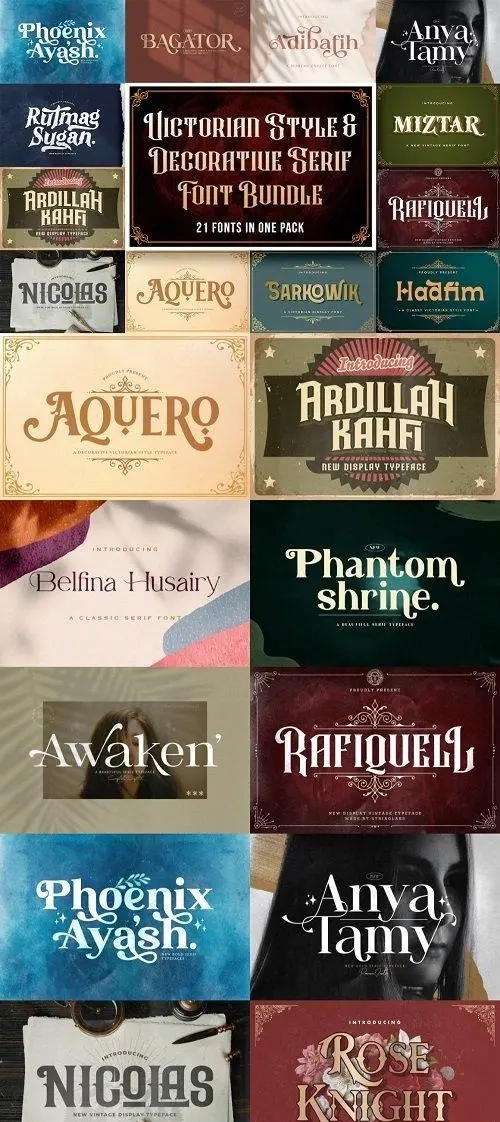
Victorian Style & Decorative Serif Font Bundle
Elevate your design projects with the Victorian Style & Decorative Serif Font Bundle. This comprehensive collection features a variety of beautifully crafted serif fonts that embody the elegance and intricacy of Victorian design. Perfect for both digital and print applications, these fonts are ideal for branding, logos, invitations, and more.
• Multiple font styles and weights
• Unique decorative elements
• High-quality typography suitable for various design needs
• Styles: Regular, Bold, Italic, and more
• Ideal for creating vintage-themed designs
• Use in branding projects to convey a sense of heritage and sophistication
• Perfect for invitations, posters, and editorial designs